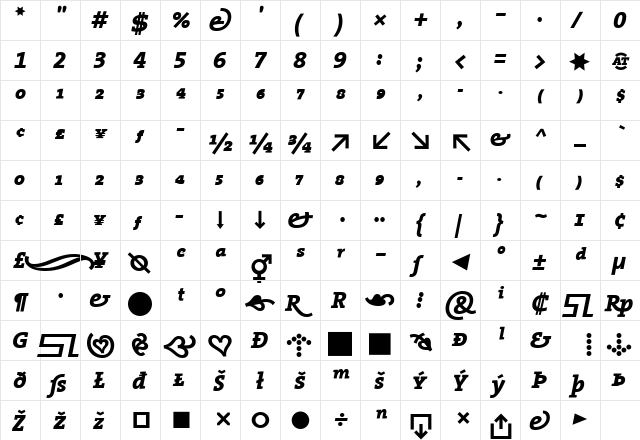
TheSerif ExtraBold Italic
Design Context for TheSerif Typeface
TheSerif brings classic typographic sensibility to the table — its serifs and measured letterforms reflect centuries of print heritage. The dynamic lean of this cut emphasises speed and emphasis in any layout. The heavy weight commands attention and anchors typographic hierarchies.
Pro Tip: Set TheSerif with slightly loose tracking in headlines to let each letterform's detail read clearly at display sizes.